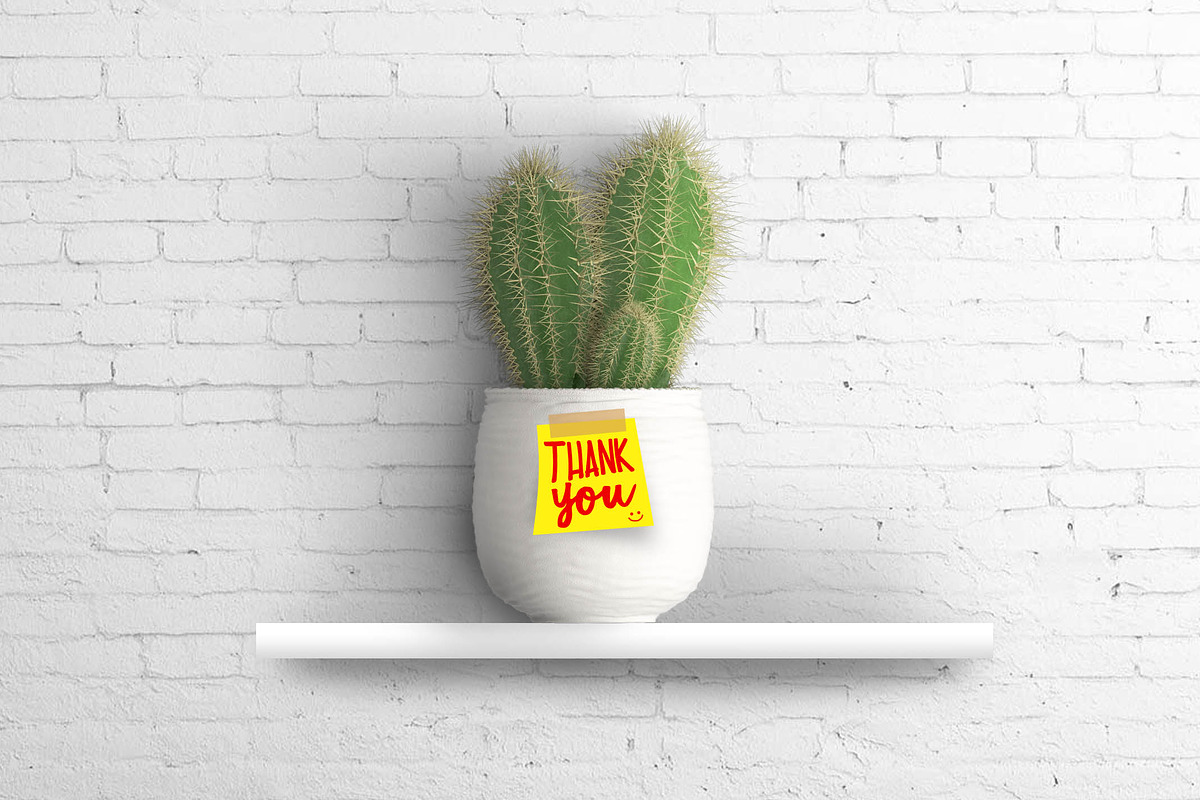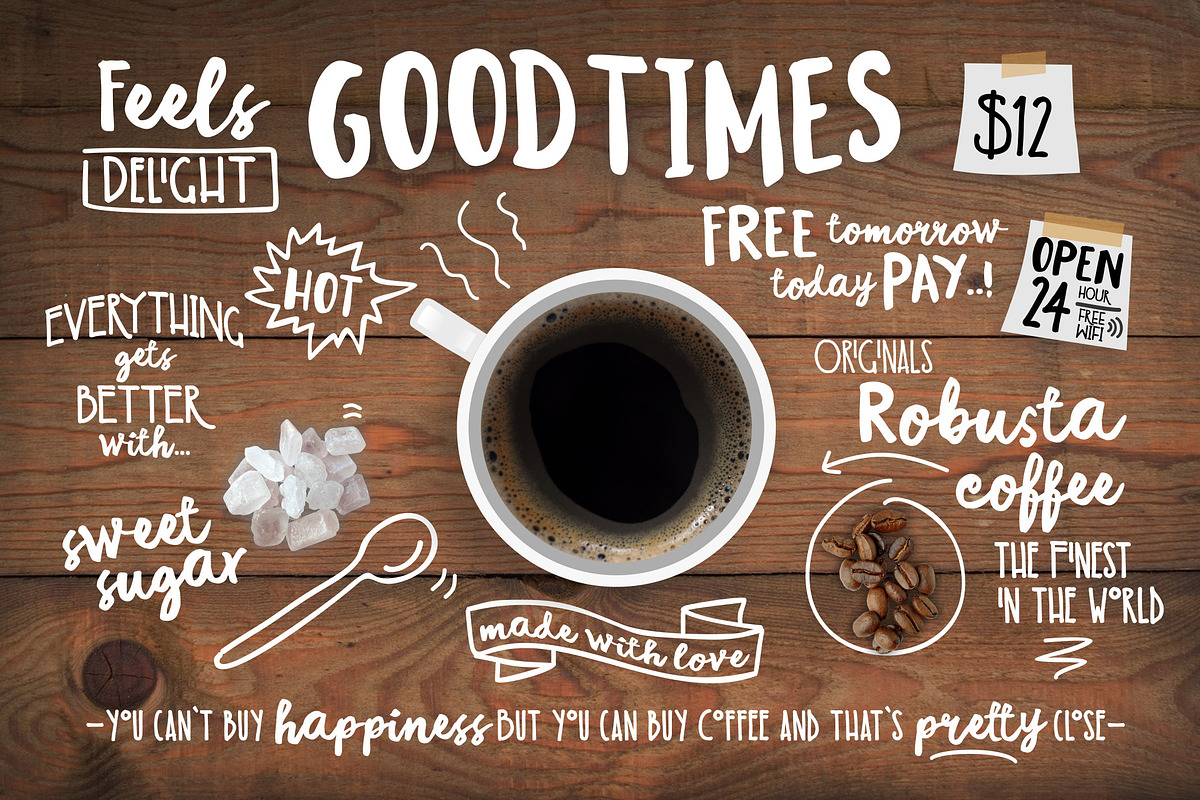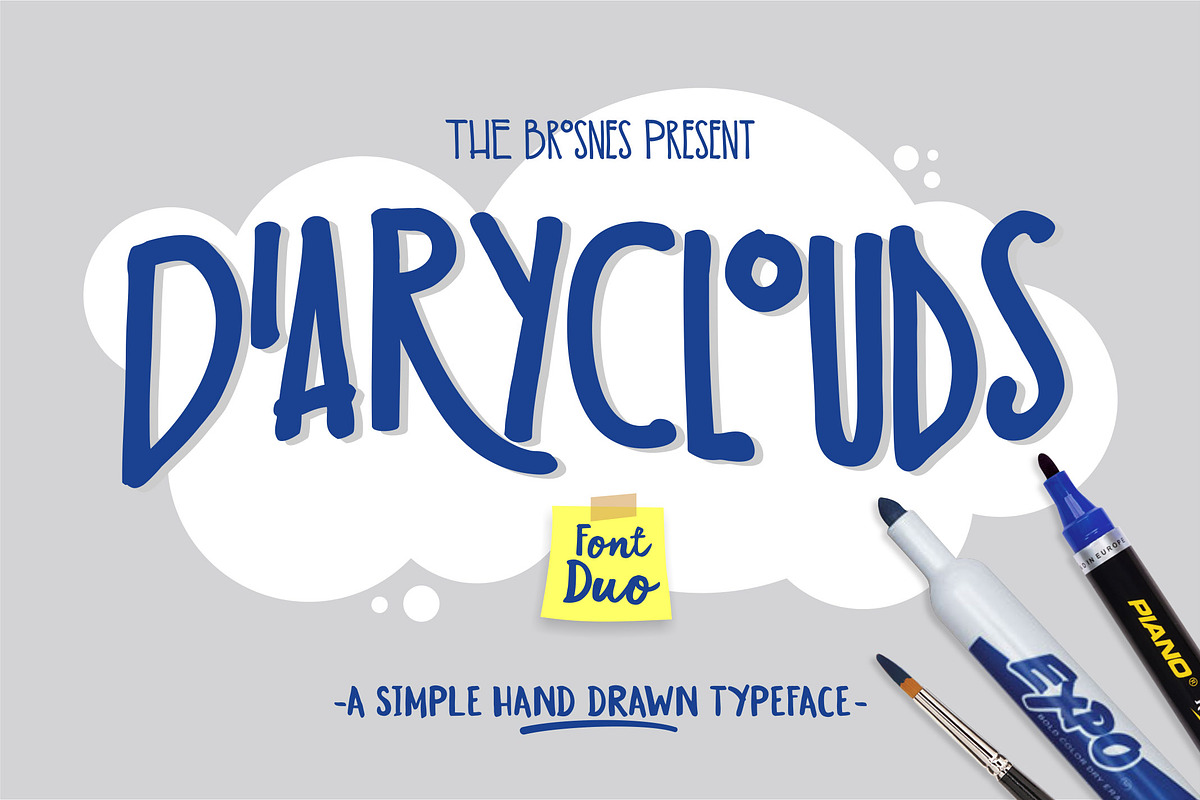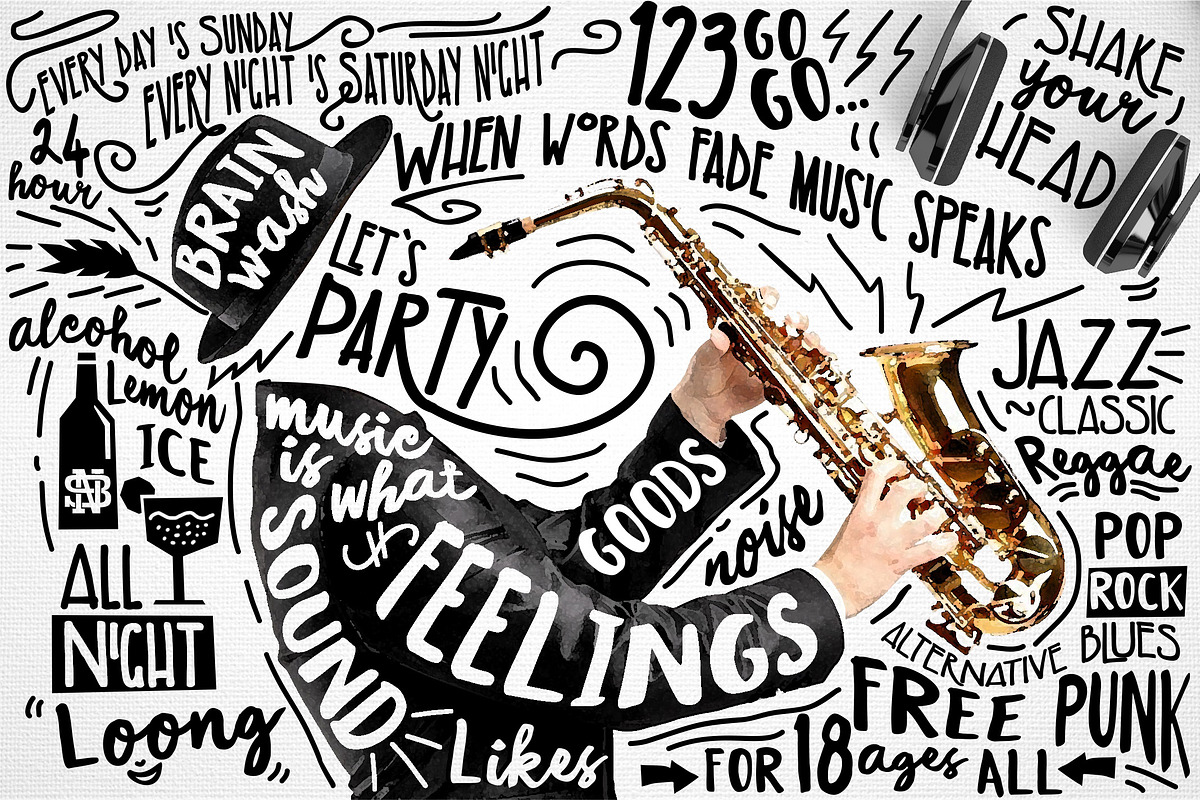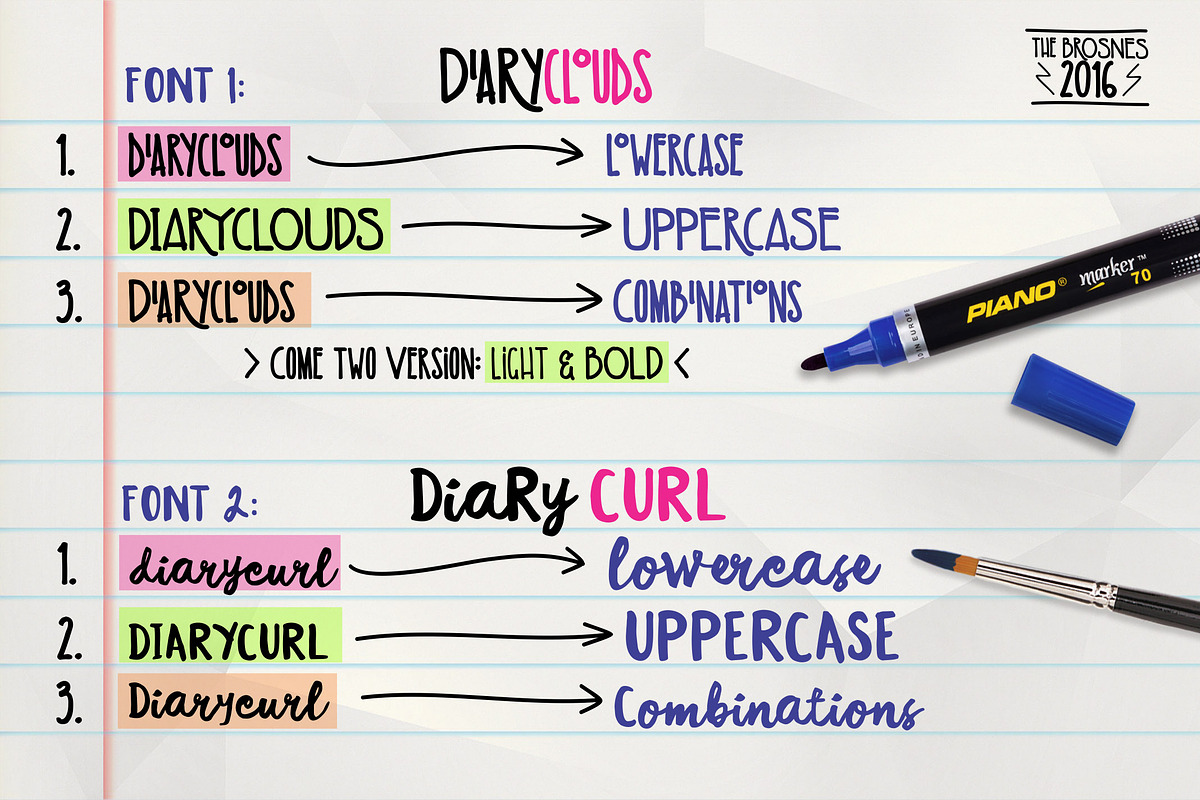
Diaryclouds typeface
Diaryclouds typeface by Brosnes is a font selected for branding, posters, packaging, typography.
- Diaryclouds Typeface includes a full set of capital and lowercase letters, as well as multi-lingual support, currency figures, numerals, pun
Why Diaryclouds typeface is worth a look
Diaryclouds typeface by Brosnes fits naturally into Branding, posters, packaging, typography.